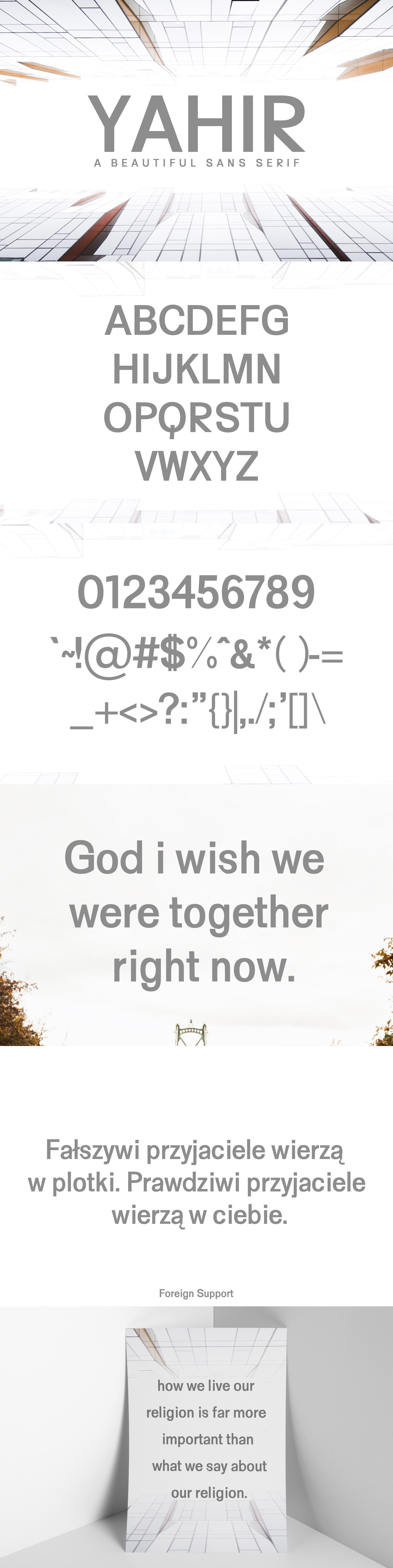
Yahir Sans Serif Font Family
Yahir is a rounded sans serif typeface was designed to looks beautiful in every context. It comes with 3 weights. Each weight includes basic glyphs with extended language support and more. Yahir is incredibly useful for for logos, invitations, texts, presentations, magazine, posters, notices, titles, name card, web layouts, headers, branding, weddings, social media, product design, stationery and advertising, and other any business related.
- Font Weight: Regular, Round and Bold
- Uppercase Letters
- Lowercase Letters
- Numbers and Punctuation